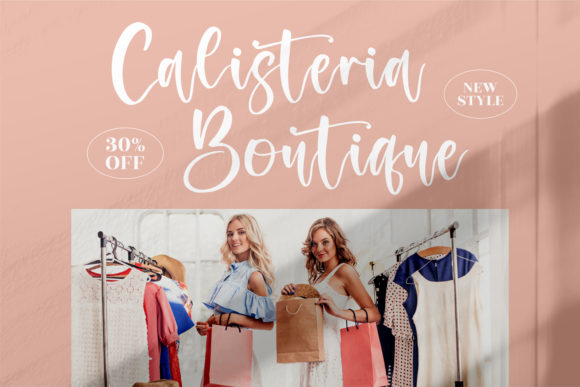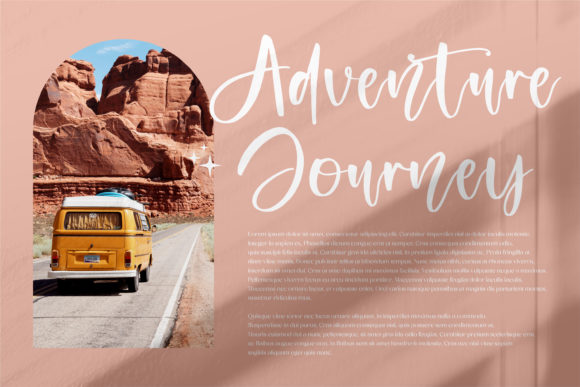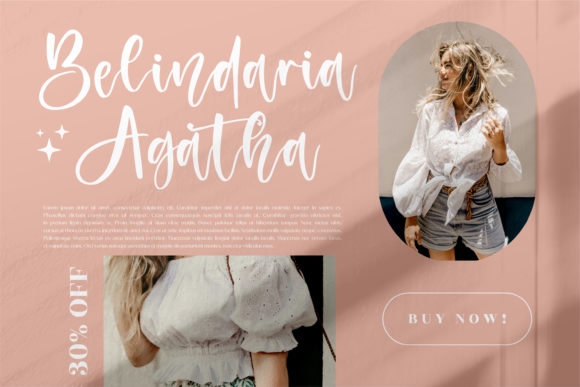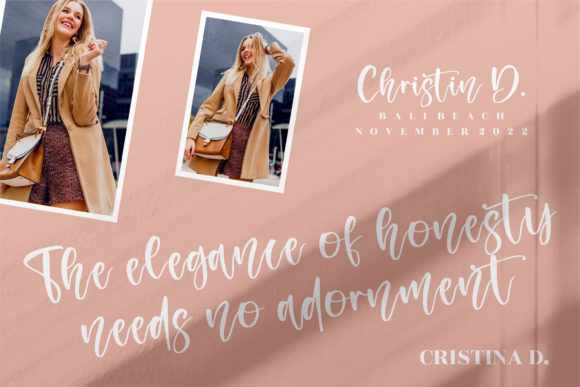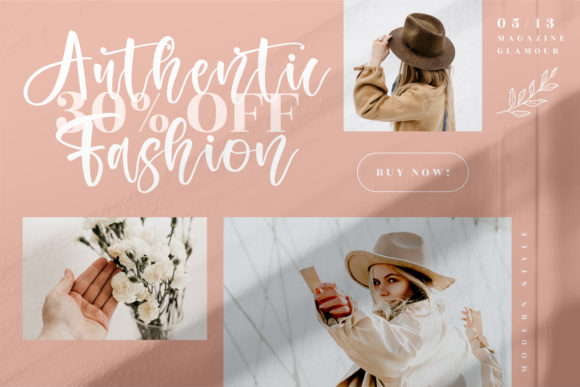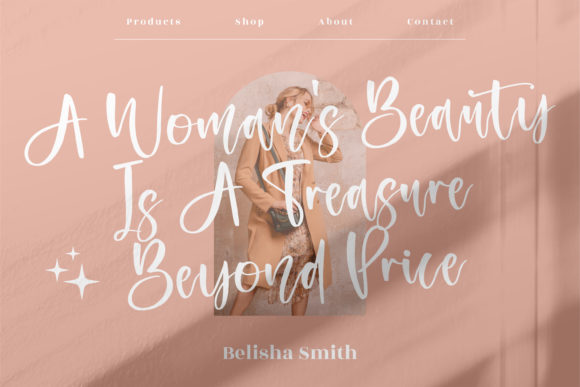
A Delicate Touch of Elegance: Discovering the Amigoste Font
As designers, we’ve all been there – staring at a blank canvas, unsure of how to bring our vision to life. The cursor blinks, taunting us to make the first move, but the words won’t come. It’s in these moments of creative uncertainty that we turn to the perfect font to set the tone for our design. And that’s where the Amigoste Font comes in – a lovely and delicate script font that exudes elegance and class.
Crafted specifically for those who crave a beautiful and refreshing look for their designs, the Amigoste Font is more than just a pretty face. It’s a valuable tool for designers who want to add a touch of sophistication to their work without sacrificing readability. With its unique charm and versatility, the Amigoste Font is sure to elevate your designs to the next level.
- Unique Characteristics: Amigoste Font features a unique blend of modern and vintage elements, with a focus on elegant lines and subtle textures
Amigoste Font Review
As a designer, I was excited to dive into the Amigoste font and see what it had to offer. Here’s my honest review.
The Amigoste font has a unique, playful feel that would be perfect for projects that need a bit of whimsy. The font’s curves and rounded edges give it a friendly, approachable vibe that’s sure to put a smile on users’ faces.
While the Amigoste font is a great addition to any design arsenal, it’s not without its limitations. Here are a few things to keep in mind:
- Lack of sharpness and precision, which may make it less suitable for projects that require a more formal tone
- May not be as readable at very small font sizes
Overall, I think the Amigoste font is a great choice for designers who want to add a bit of personality to their projects. While it may not be the best fit for every project, it’s a versatile and highly customizable font that’s sure to please.
Getting the Most Out of Amigoste Font
To get the most out of Amigoste Font, use it in combination with bold and italic styles to add emphasis and contrast to your text.
Amigoste Font is commonly used for creative projects, such as branding, advertising, and social media graphics. It’s also suitable for use in presentations, documents, and websites where a unique and eye-catching font is needed.